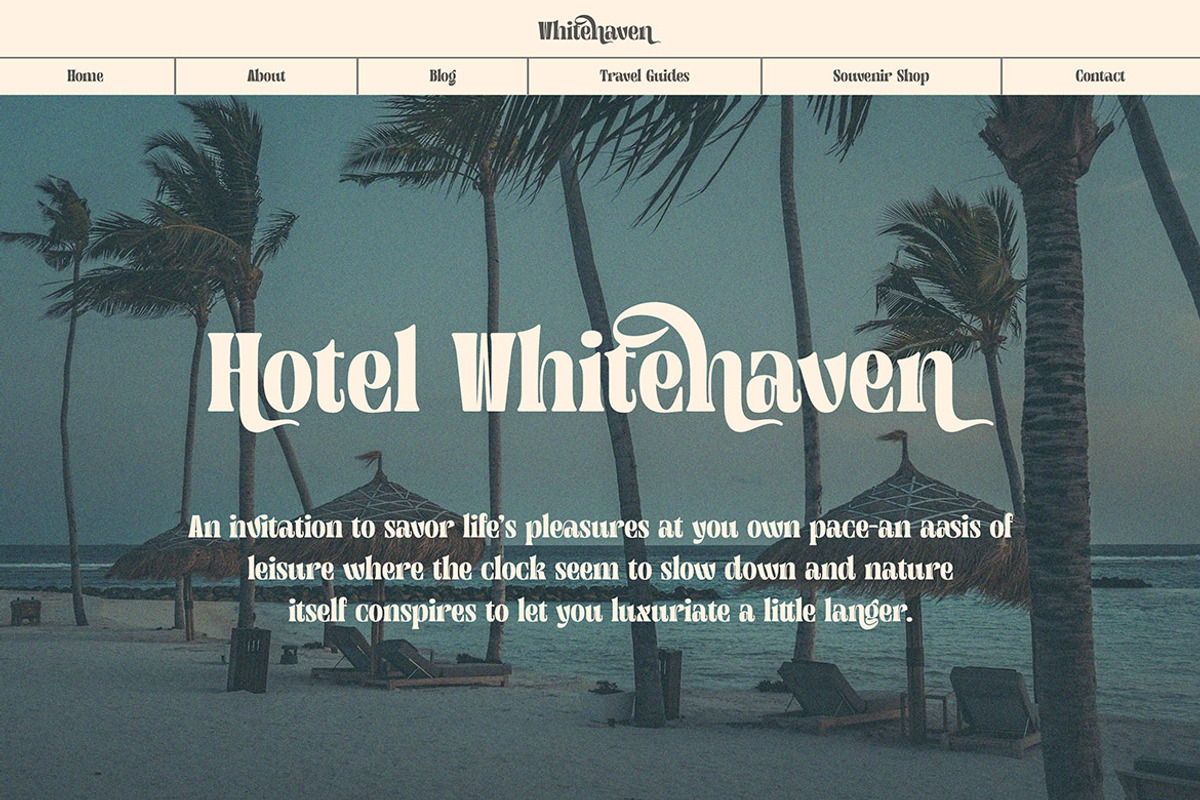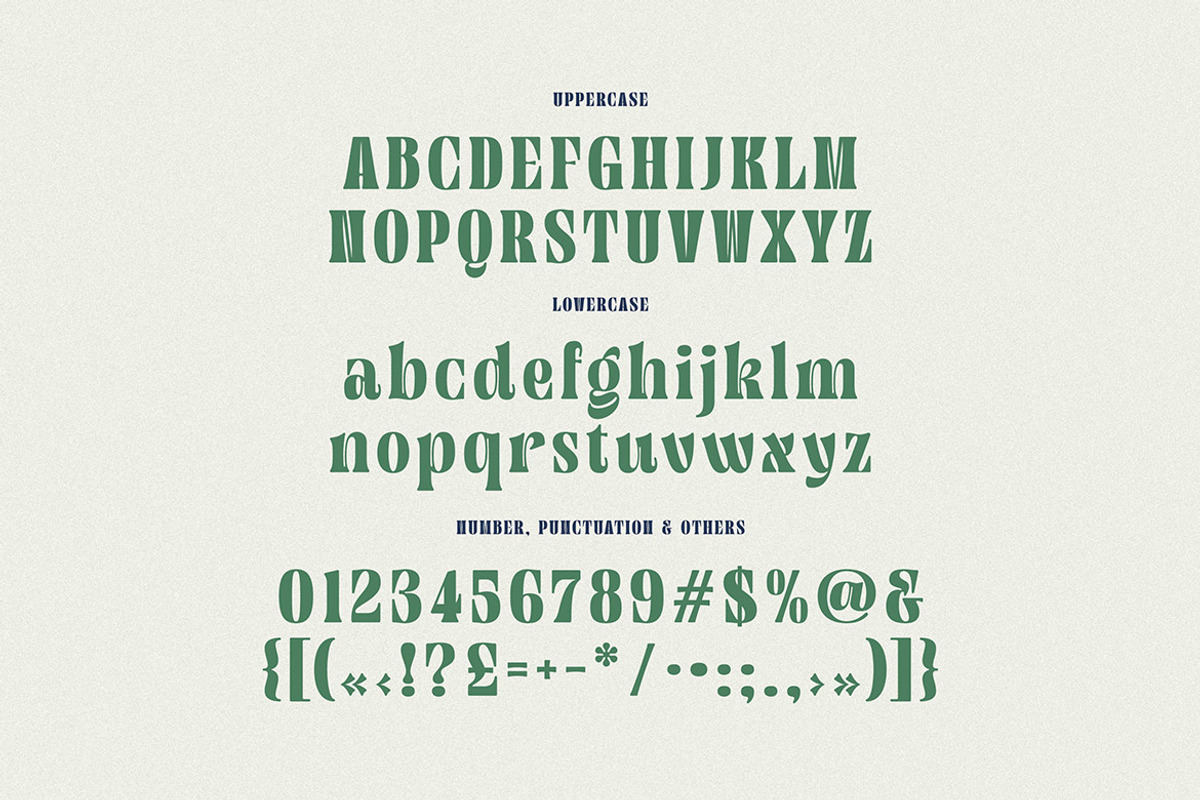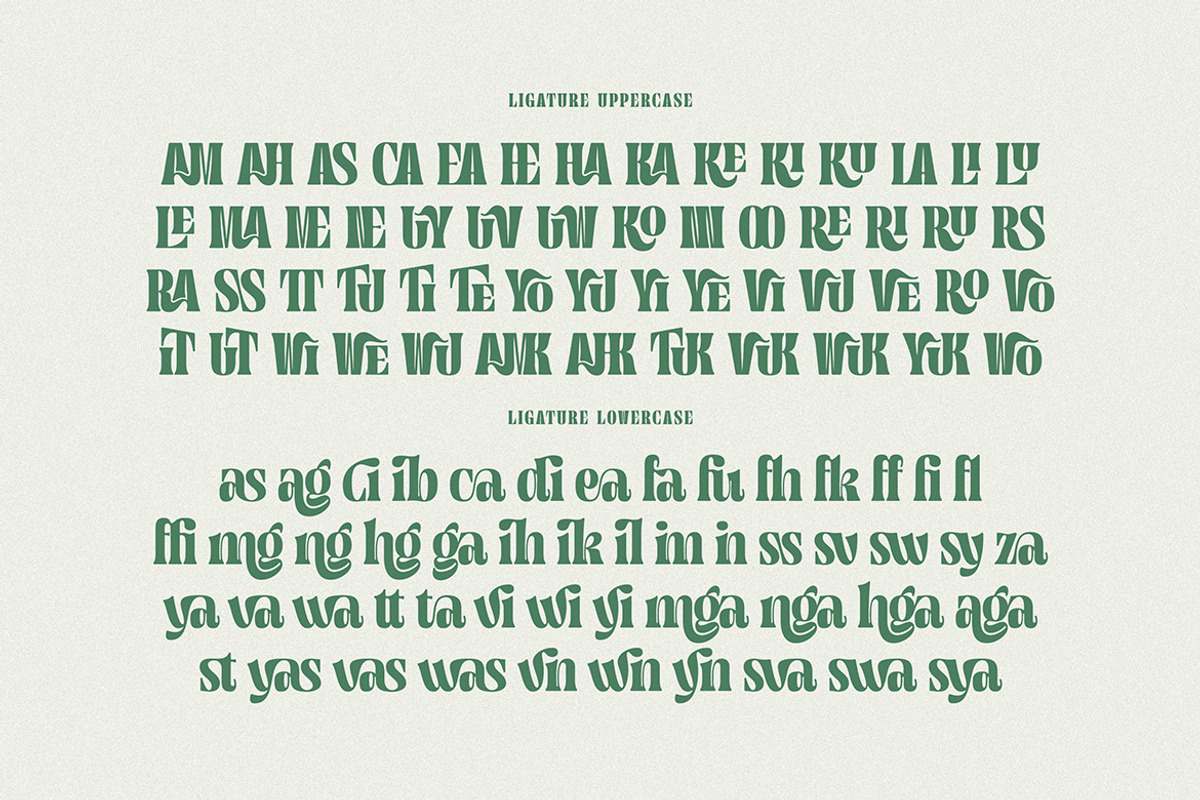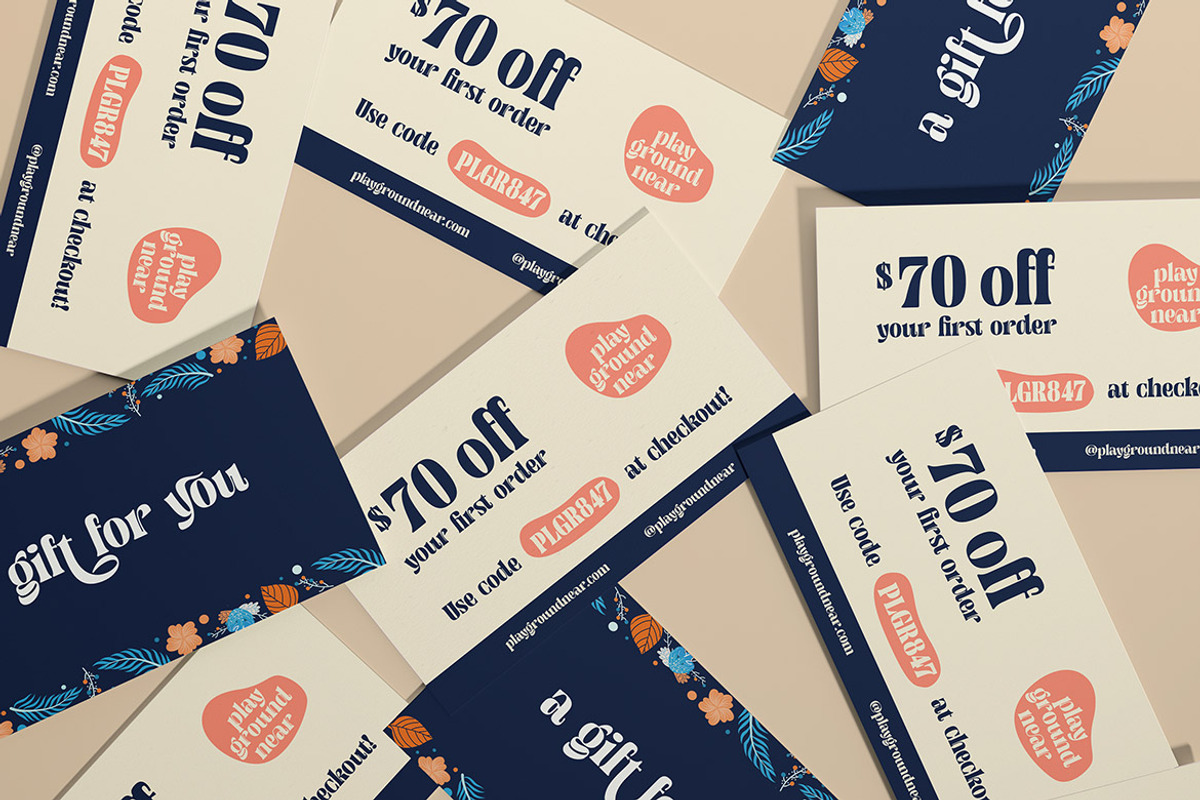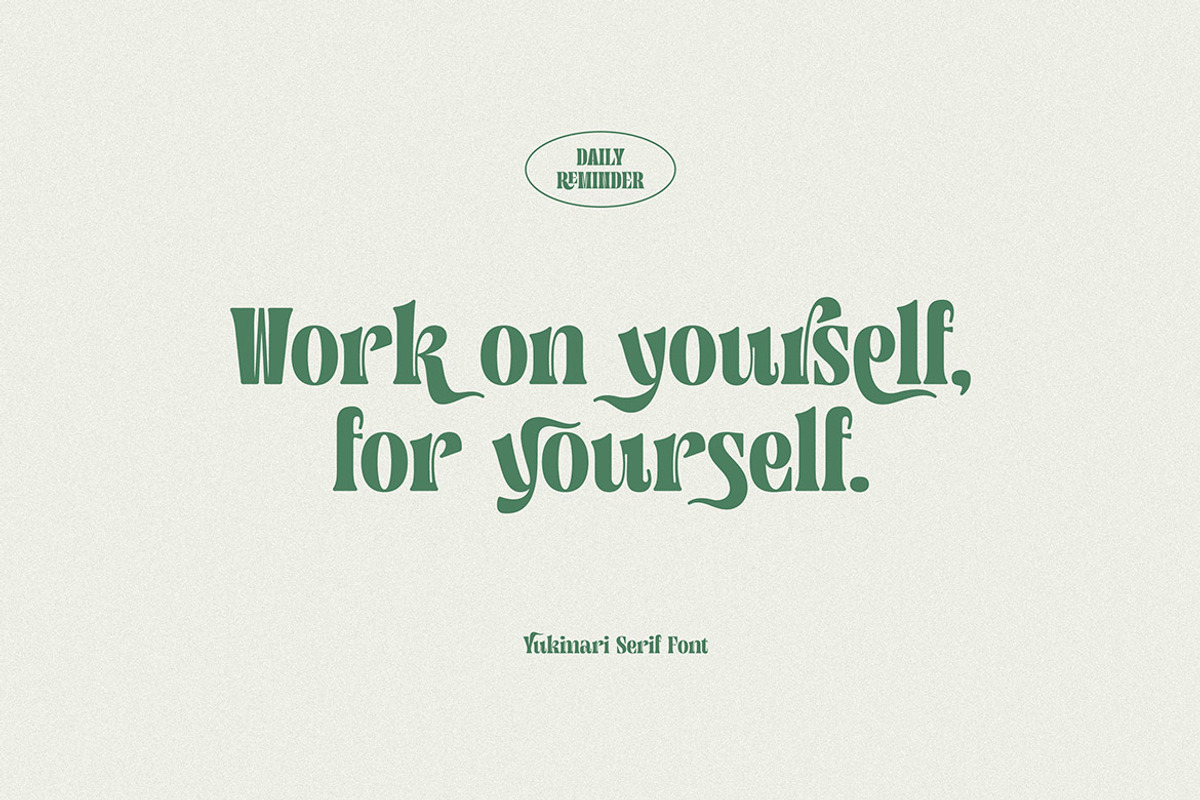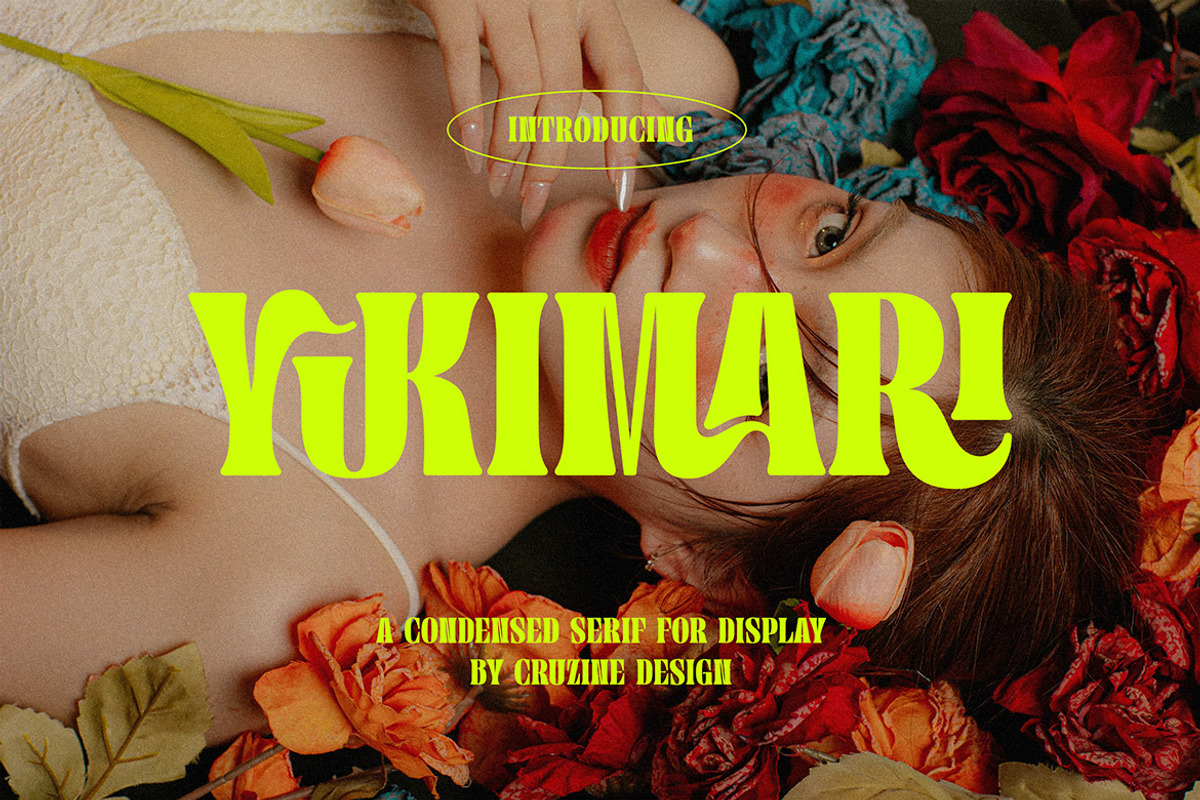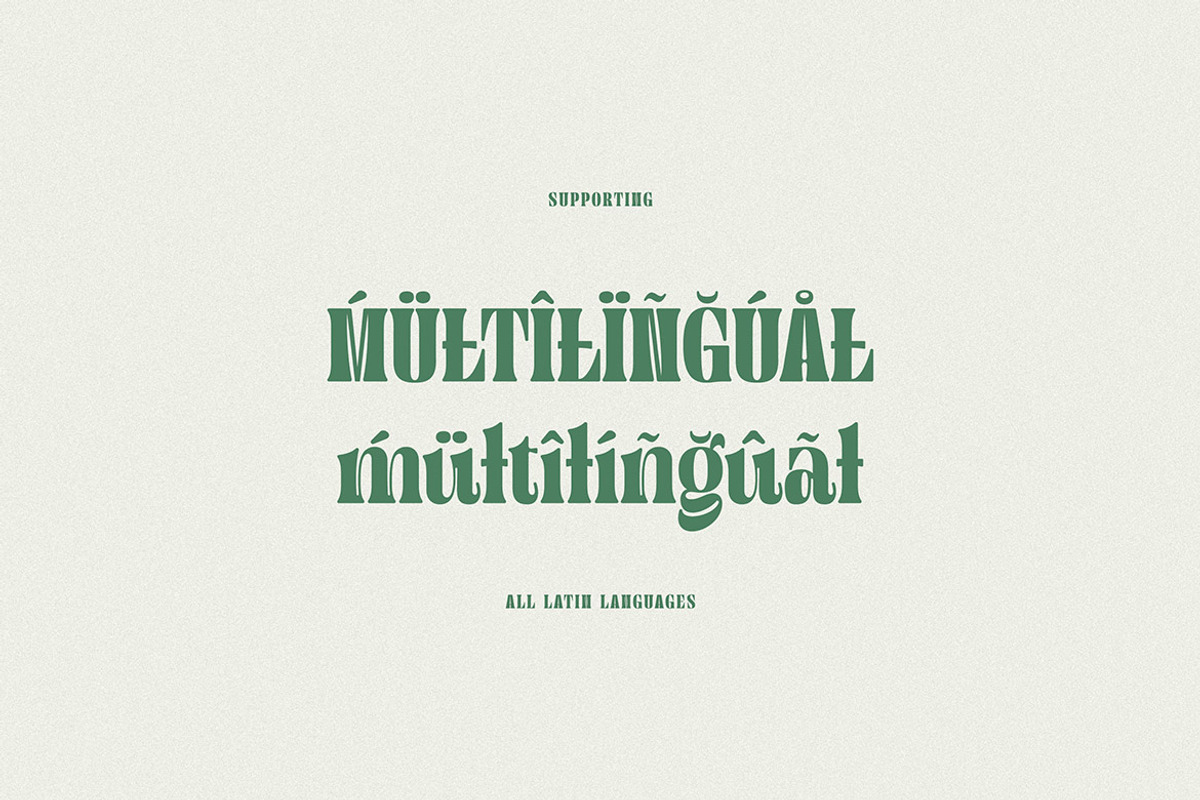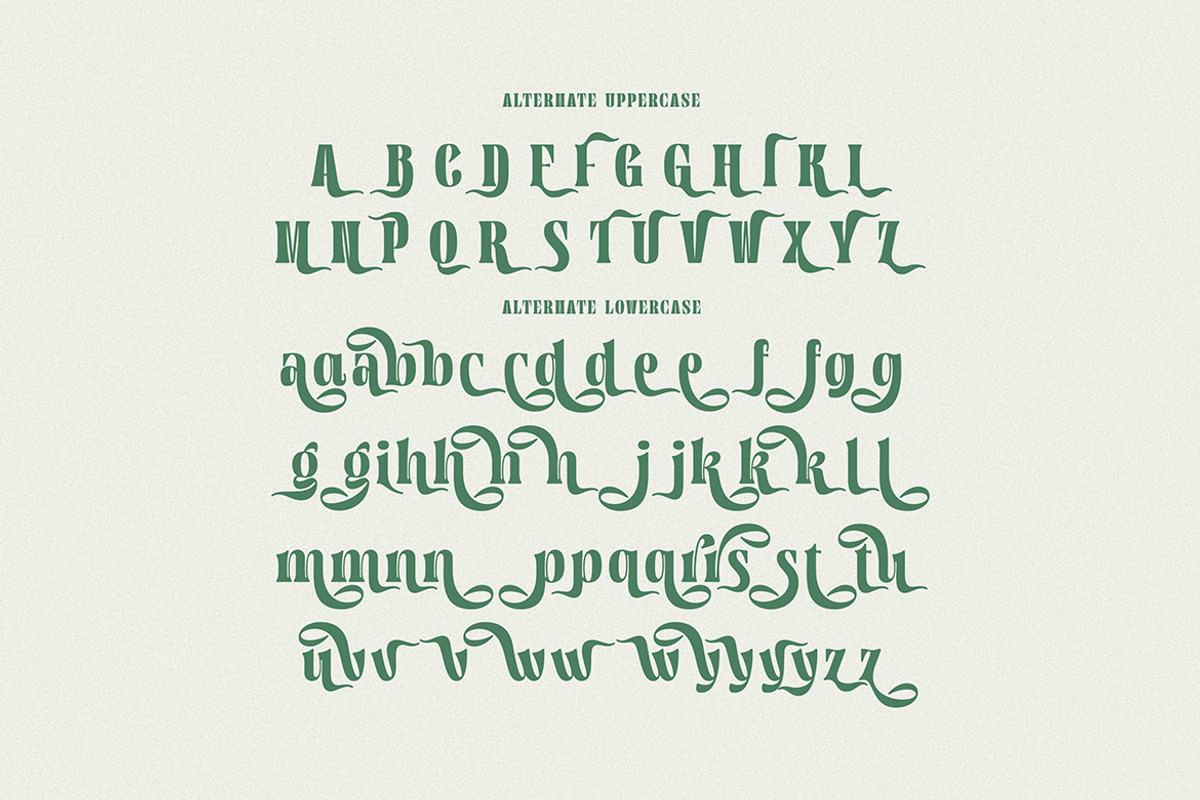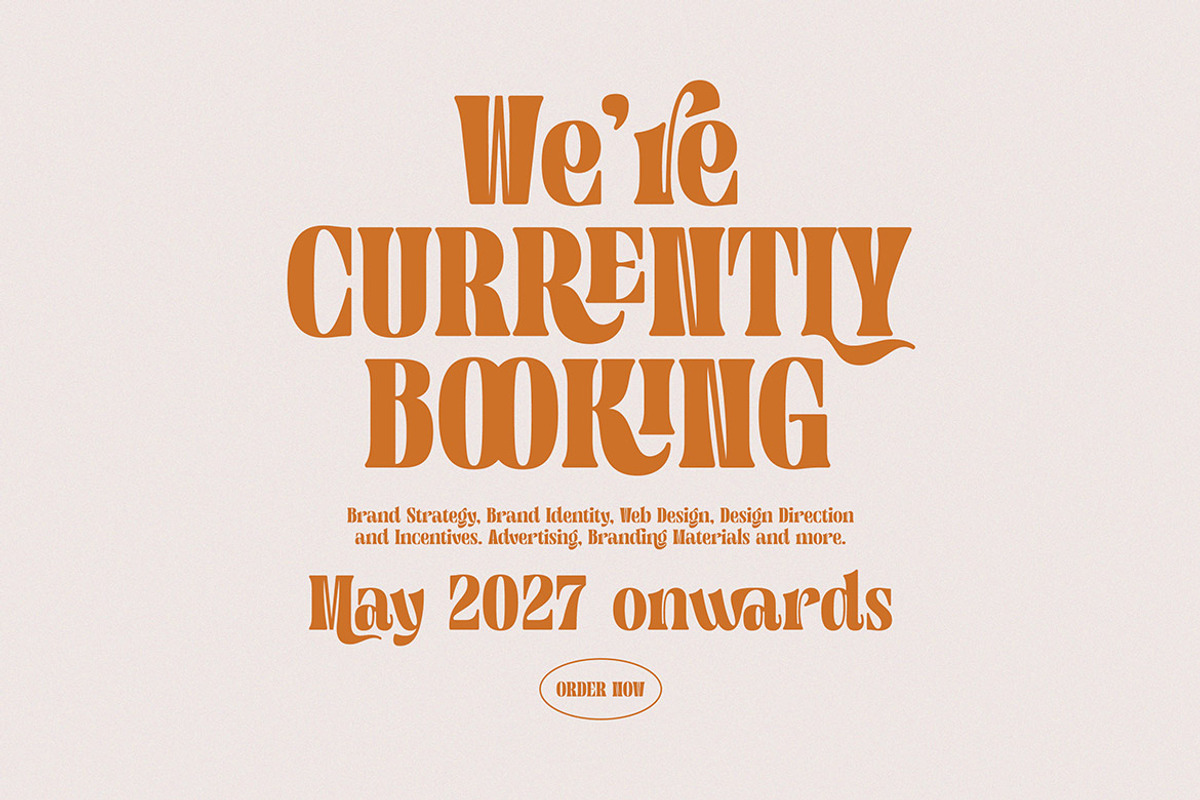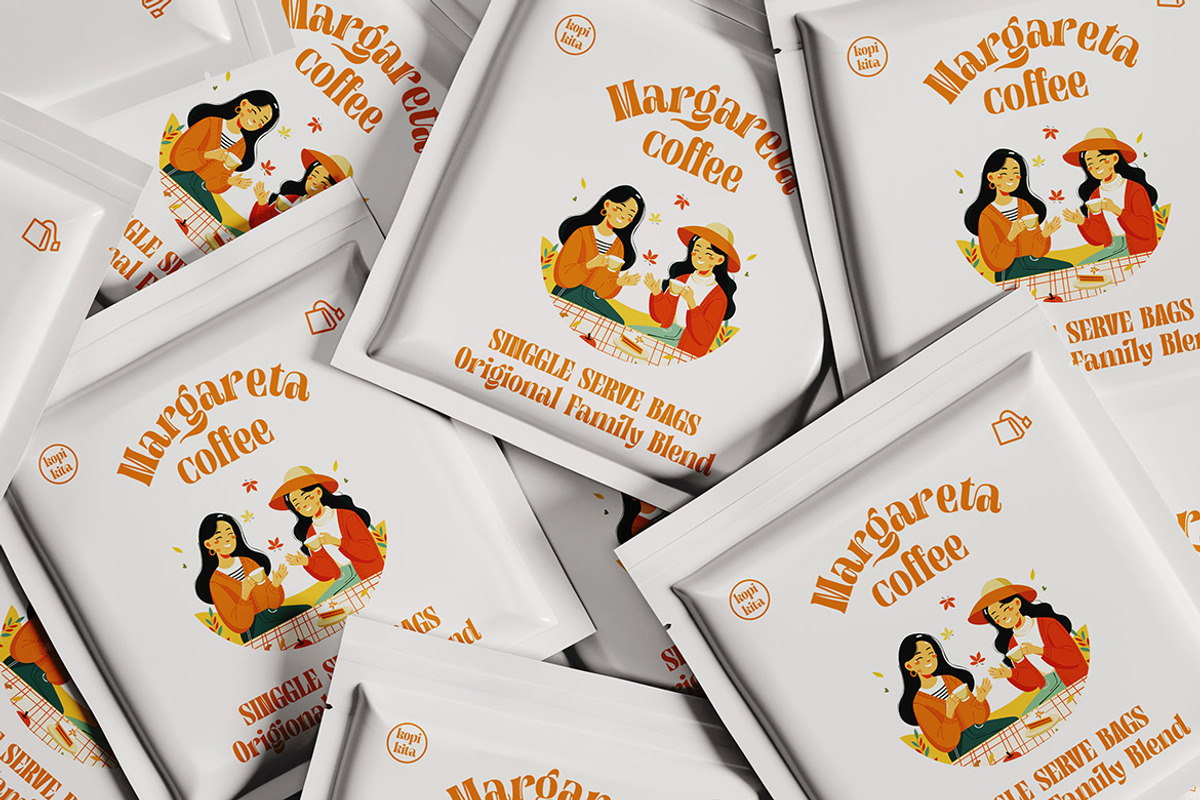
Yukimari
Playful, groovy, funny, condensed & retro style display serif font for your new projects. Funky and quirky style on Yukimari font will be great for any creative branding project. Lot of alternates and ligatures will help you to create unique and original logo design or website header! Enjoy :)
Alternate characters
Lot of ligatures
Great for modern branding projects!